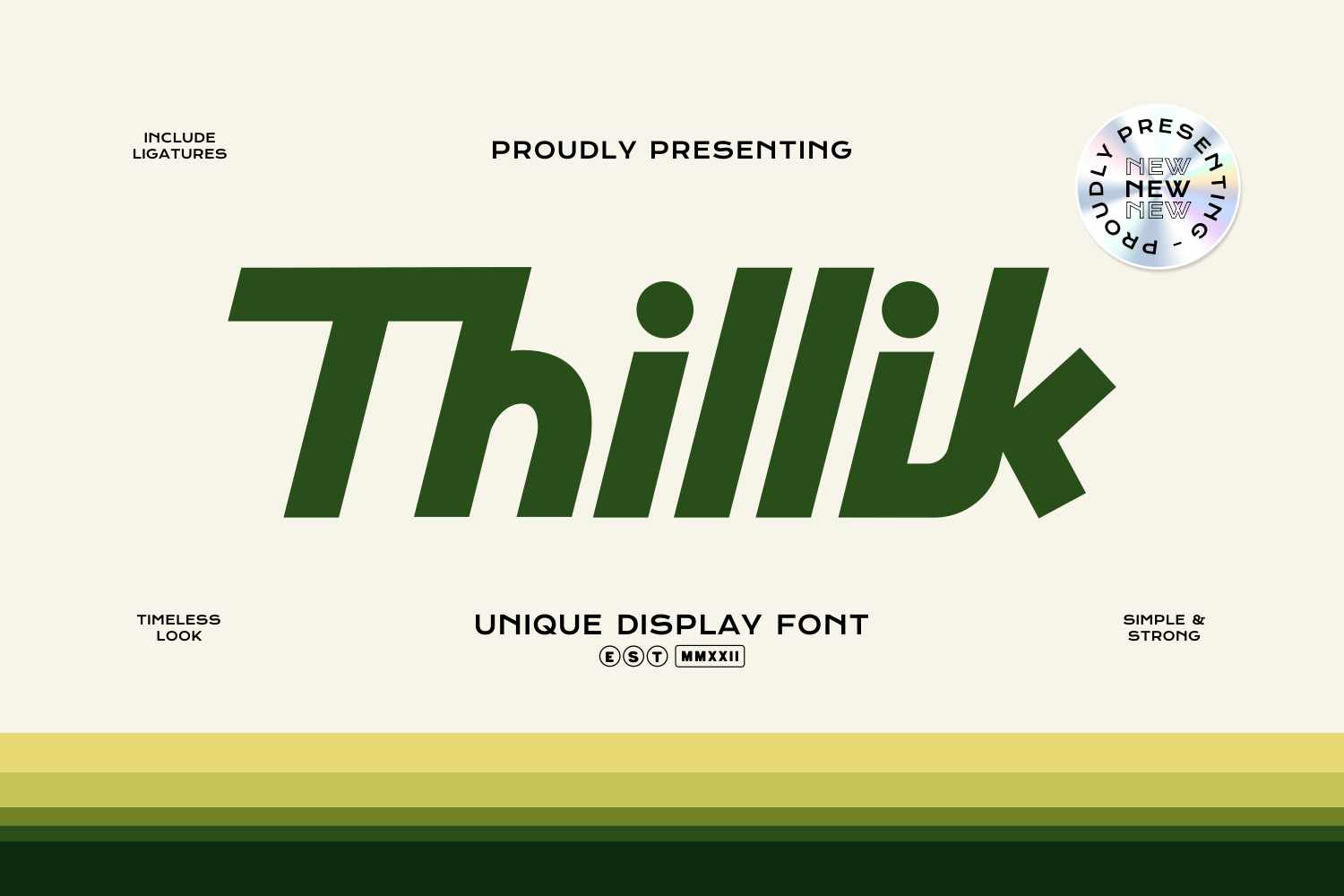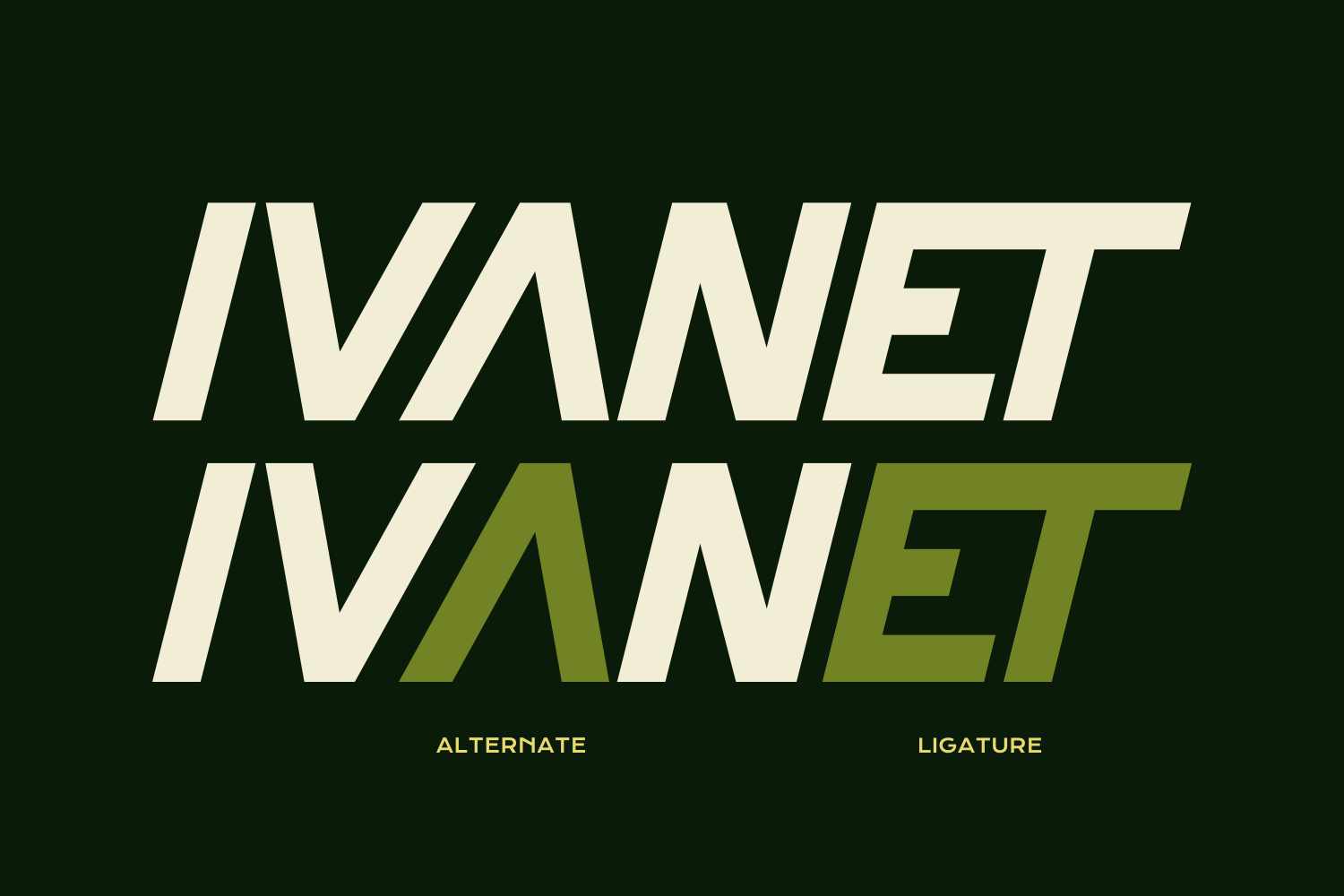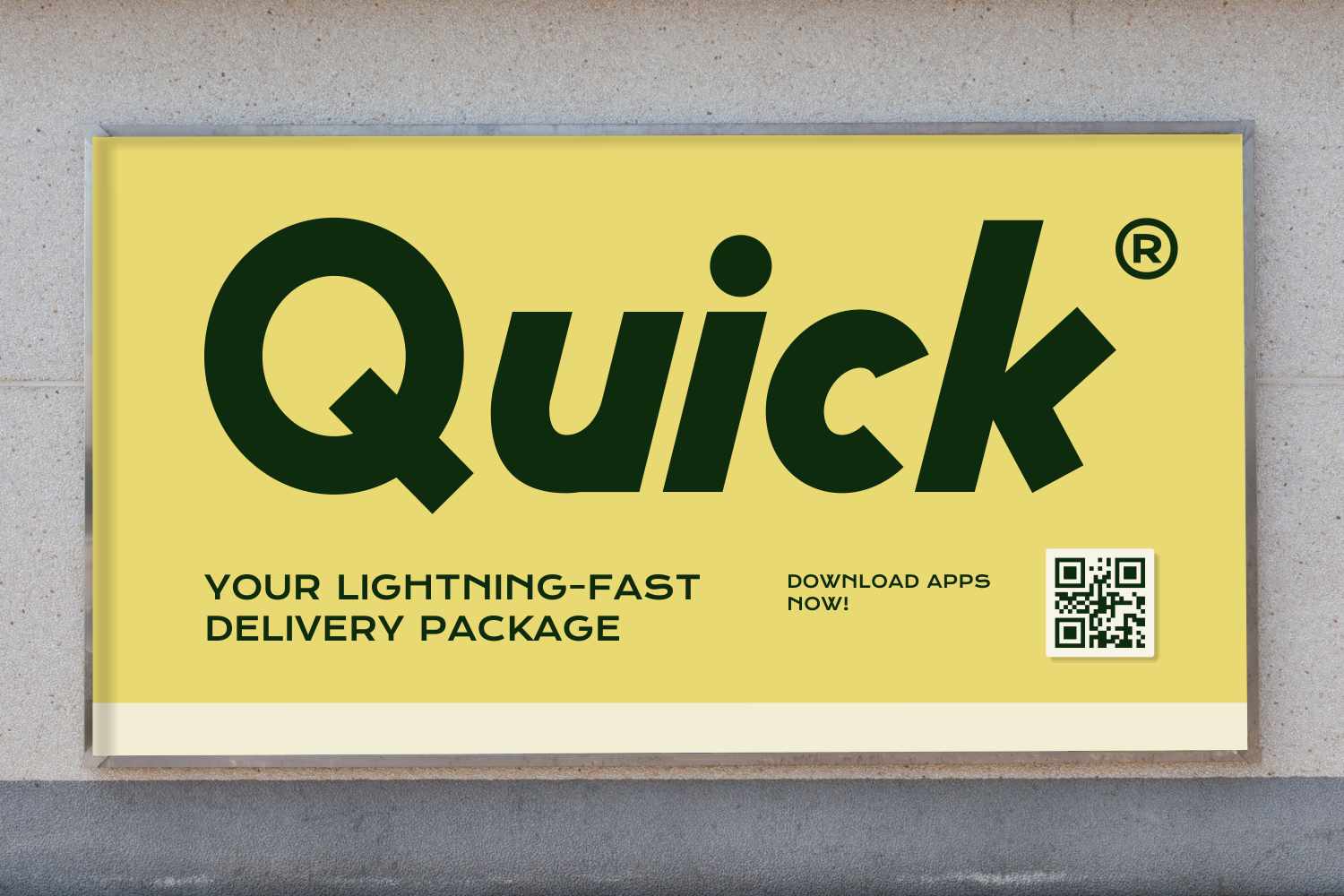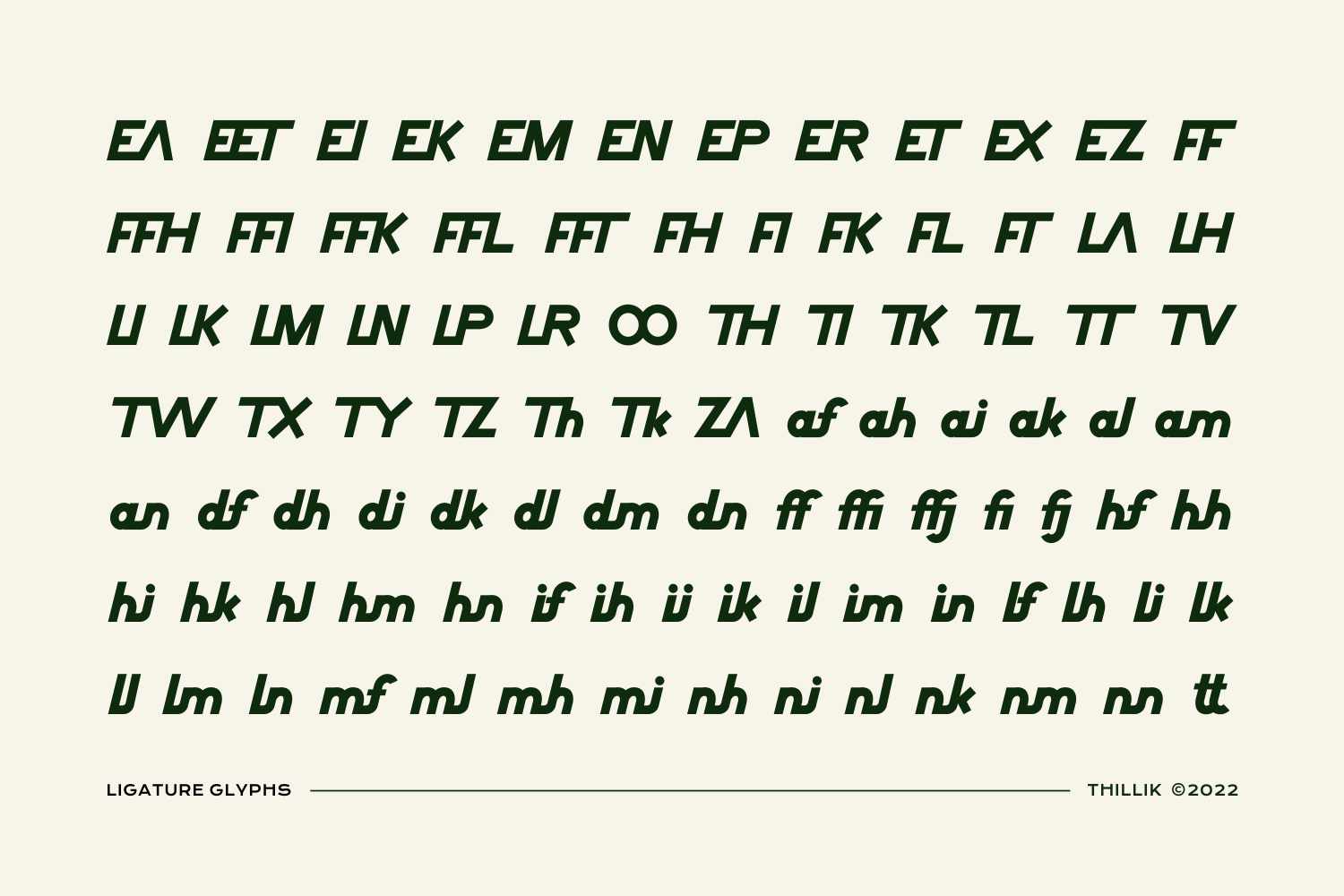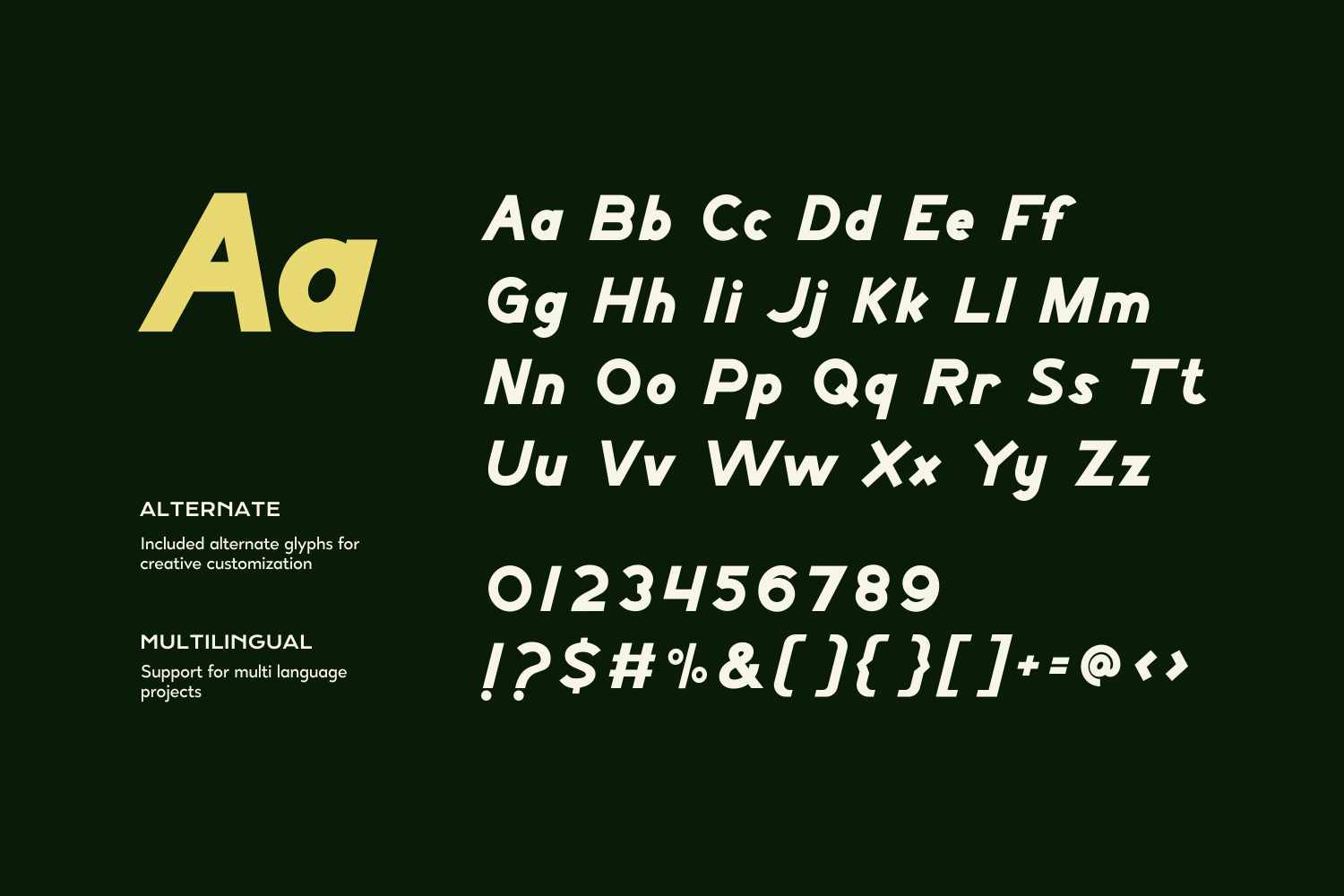
Thillik is a bold and modern display font designed with dynamic slanted forms that exude speed, energy, and confidence. With its clean lines and geometric construction, this typeface is perfect for branding projects, posters, sports designs, and advertisements that require a powerful visual impact. The font includes ligatures and alternate characters, allowing designers to create unique wordmarks and expressive typography with ease.
Supporting multilingual characters and complete with numerals, punctuation, and special glyphs, Thillik offers flexibility for both digital and print applications. Whether used for logos, packaging, or editorial layouts, this font delivers a strong and contemporary style that will elevate any creative project.
Thillik